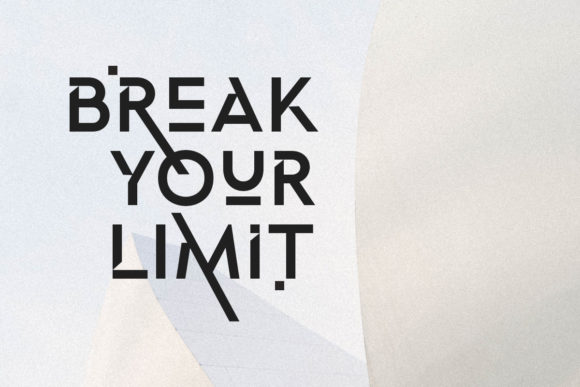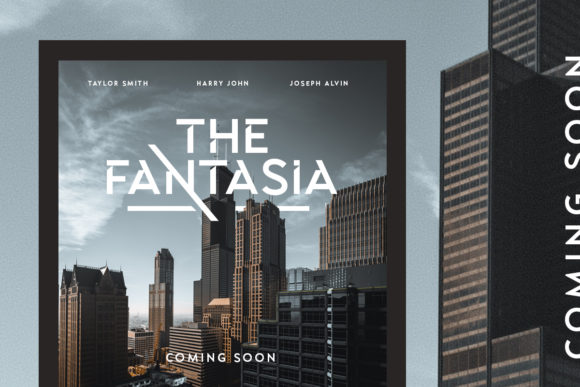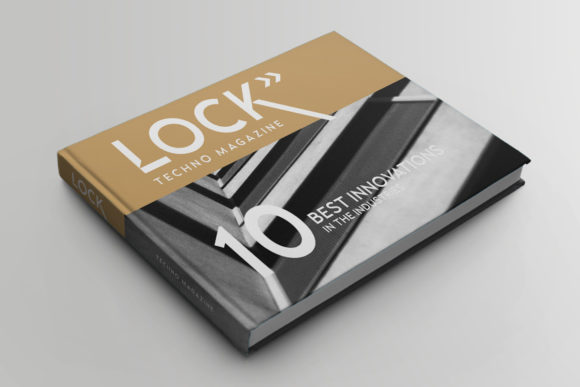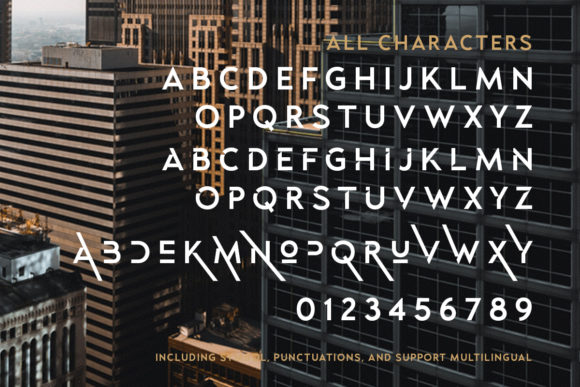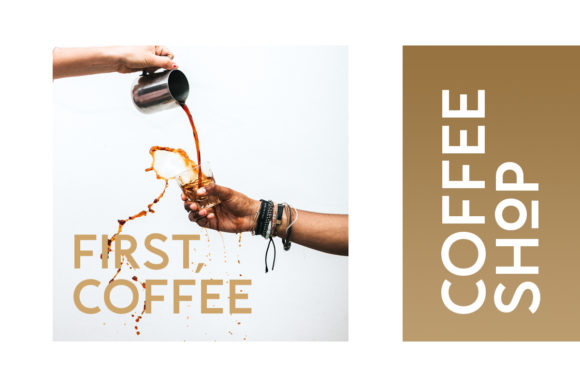
Unlock Your Creativity with the Blackpast Font
Do you remember that moment when a single font choice completely transformed your design project? It’s like the entire aesthetic shifts, and suddenly, everything clicks. For many designers, that magic moment is just a font away.
Introducing the Blackpast Font, a bold and modern display font that celebrates abstract shapes in all their eclectic beauty. Whether you’re working on a branding project, a poster, or a social media graphic, this font is the perfect addition to make your creative ideas stand out. By incorporating the Blackpast Font into your design, you’ll add a touch of sophistication and visual interest that’s sure to grab attention.
As a valuable tool for designers, the Blackpast Font offers endless possibilities for creative expression. Its unique style and versatility make it an essential addition to any design arsenal, allowing you to take your projects to the next level and make a lasting impression on your audience.
Key Features of Blackpast Font
- Font Family: Blackpast is a modern sans-serif font family designed specifically for digital use. It is available in multiple weights, from Light to Bold.
- Unique Characteristics: Blackpast Font features a unique blend of modern and classic design elements, with a focus on readability and legibility in digital environments. Its clean lines, open counters, and optimized letterforms make it an ideal choice for digital typography.
- Character Set: Blackpast Font includes a comprehensive character set, including Latin, Greek, and Cyrillic alphabets, as well as a range of punctuation and symbol characters, making it suitable for use in multiple languages.
Designer Review: Blackpast Font
Overall, I have mixed feelings about the Blackpast font. While it has some great qualities, it also falls short in a few areas.
- Unique Character: The Blackpast font has a distinctive and memorable character, which can be a major asset in branding and design.
- Legibility: The font is generally easy to read, making it suitable for body text and other applications where readability is crucial.
- Flexibility: Blackpast can be used in a variety of contexts, from formal to informal, making it a versatile option for designers.
- Limited Expressiveness: The font’s unique character can sometimes feel restrictive, making it difficult to convey complex emotions or ideas.
- Not Ideal for Headlines: While Blackpast is great for body text, it may not be the best choice for headlines or titles, where a bolder or more attention-grabbing font is often preferred.
- Some Letters May Feel Clunky: A few letters in the font may feel slightly awkward or difficult to read, which can be a distraction in certain contexts.
Overall, I think Blackpast is a solid font that can be a great addition to a designer’s toolkit. While it has its limitations, it’s a versatile and unique option that can add character to a design.
The Blackpast Font is ideal for creating a vintage or distressed look in your designs. Some common use cases include:
- Creating a retro-style poster or flyer.
- Designing a historical or educational publication.
- Adding a touch of nostalgia to a branding or marketing campaign.